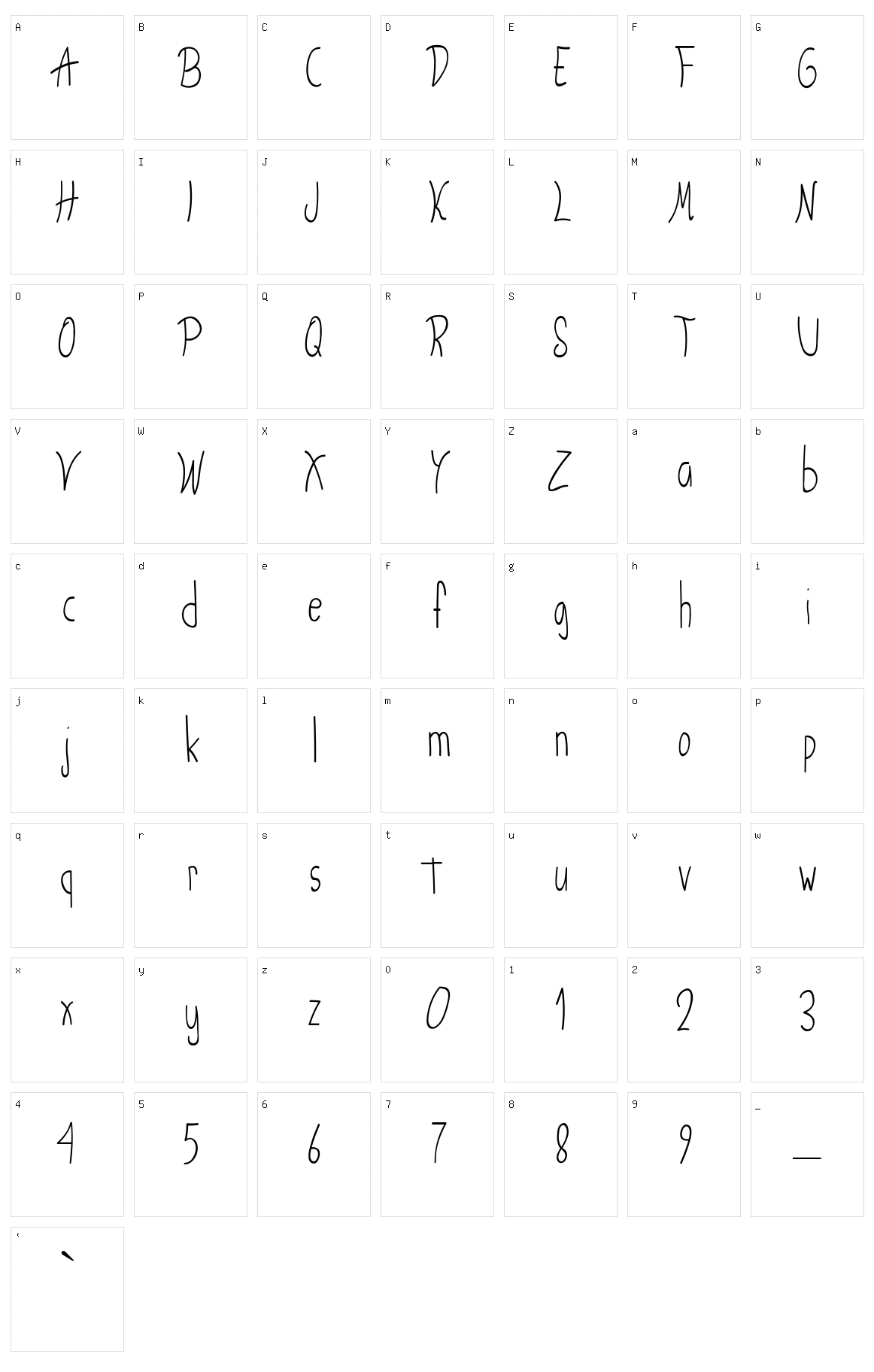
The free font Atmosperunda is carefully designed by Raafi Hilmi, showcasing a thoughtful balance of creativity and usability and falls under the Script font style. When you download the ZIP file, it contains only 18.41 KB of font files, making it lightweight and quick to download. Please review the license details below to understand permitted usage and distribution rights. If license information is not available, we recommend using this font for personal projects only or contacting the author directly for commercial usage permissions.